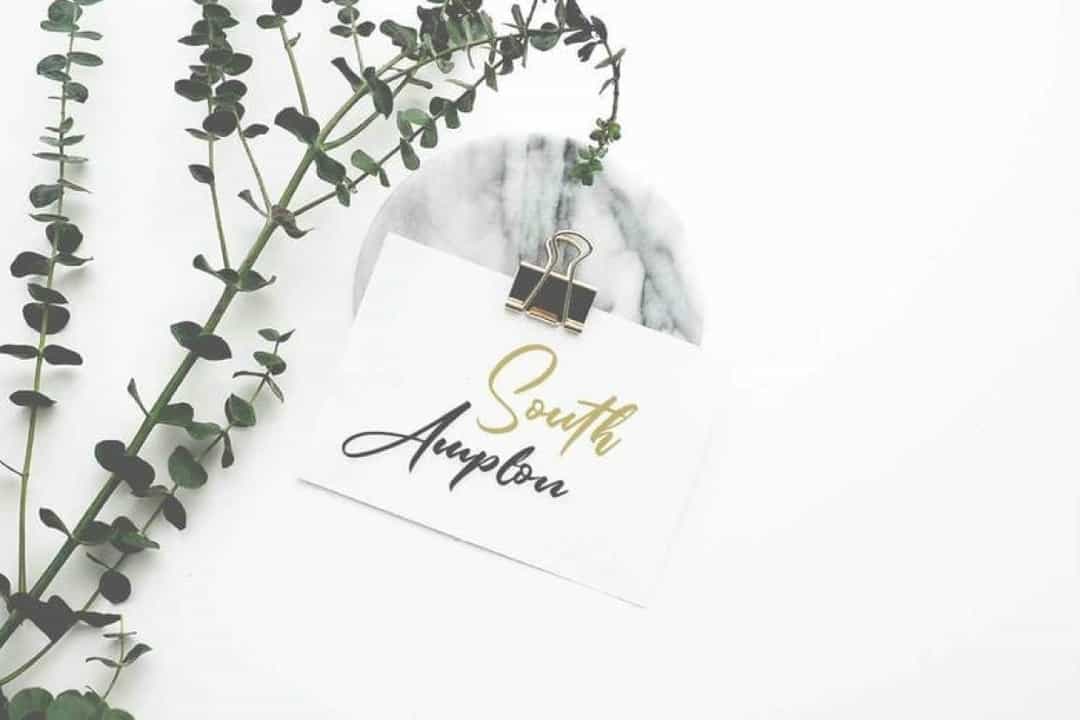
Southampton Modern script in handwritten style that brings a modernism theme. So easy to give any text with elegant and classy touch, street look that you were needed! Being situated in Southampton is the perfect location to devise my own wedding designs, branding projects and social media posts.